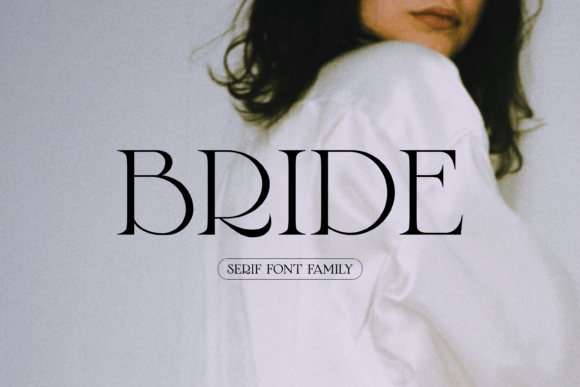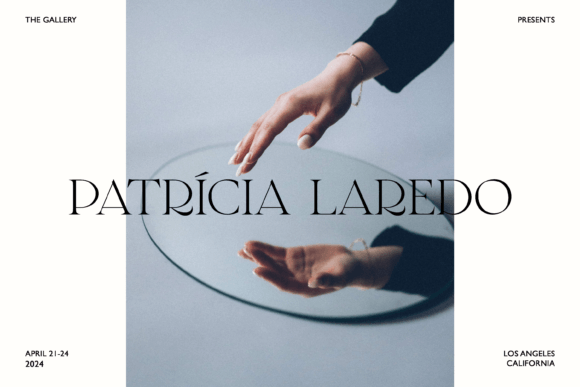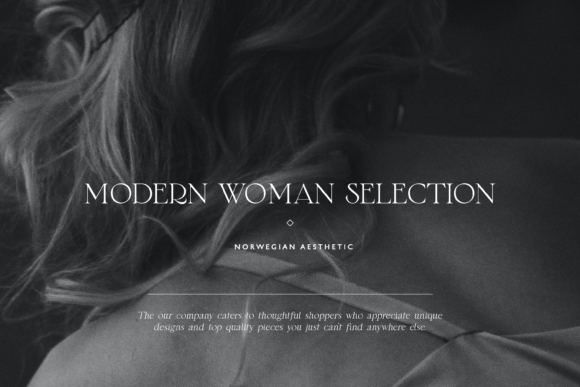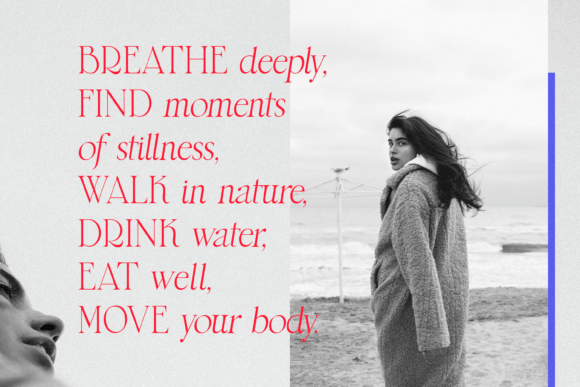
About the Bride Font
Explore the possibilities with Bride Font, a font that offers both beauty and functionality. Bride, a stylish and poetic serif font, graces the written word with timeless elegance. Its delicate serifs and graceful curves evoke a sense of sophistication, making it ideal for projects that demand refined beauty. Each letter dances gracefully, turning any text into a visual ode to classic aesthetics.